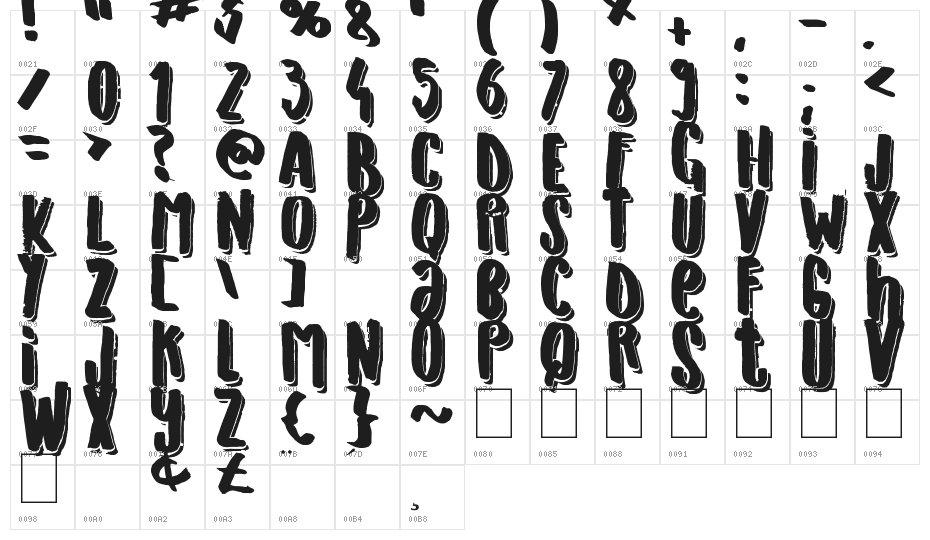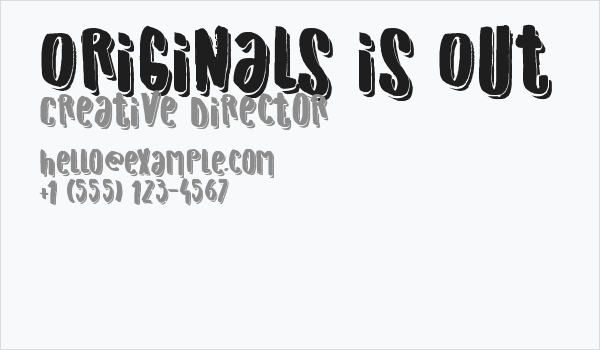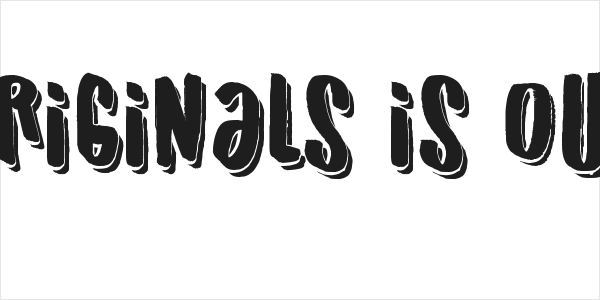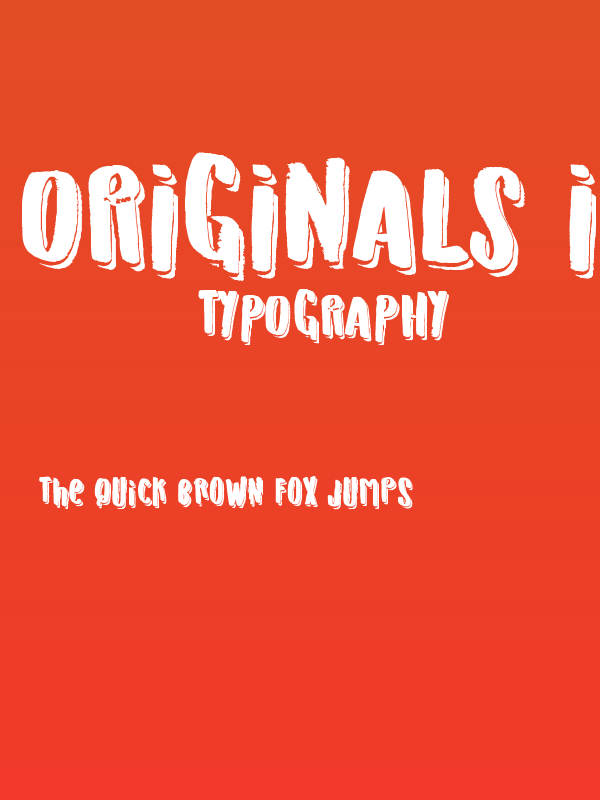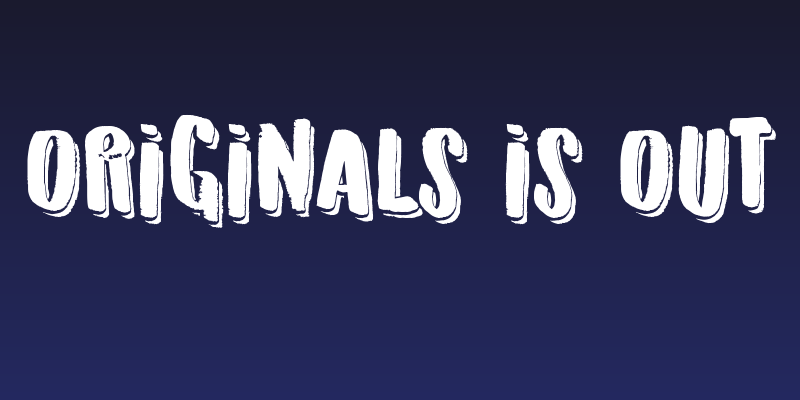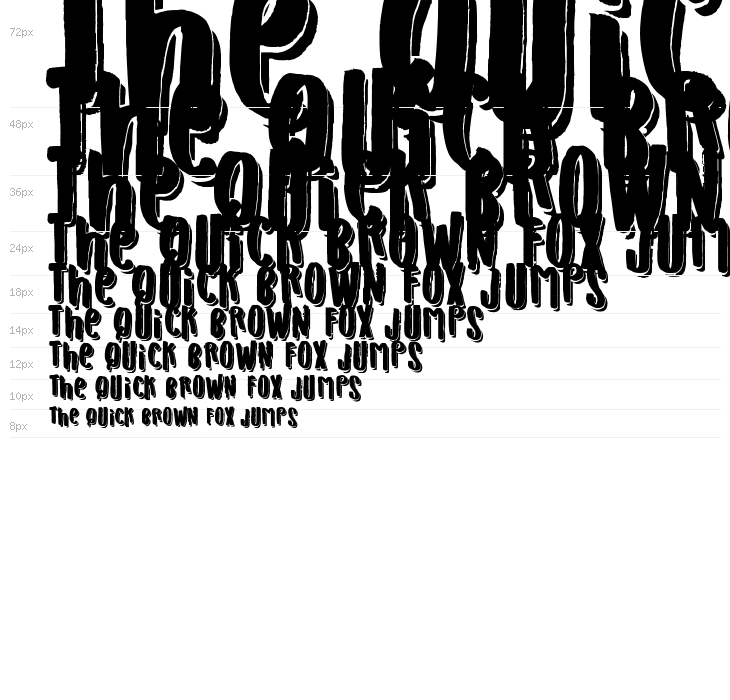
Originals is Out Font
Originals is Out Description
This font features a bold and expressive style with a hand-painted appearance. The characters are thick and have a rough, textured edge that gives them a dynamic and energetic feel. The uppercase and lowercase letters maintain a consistent style, with exaggerated curves and angles that add to the font's unique personality. The numbers and special characters are equally bold and maintain the same textured, hand-drawn quality. This font is ideal for projects that require a strong visual impact and a sense of creativity and individuality.
| Proposed Projects | Ideal for posters, album covers, branding, and any creative projects that require a bold statement. |